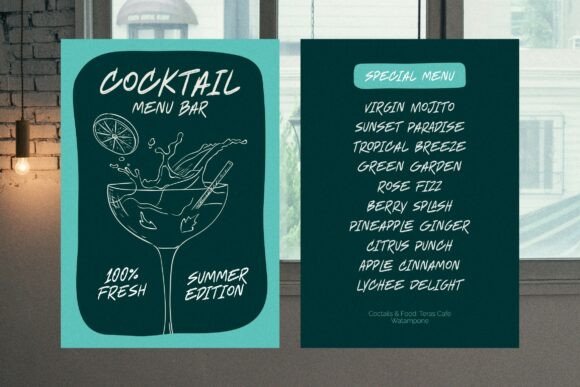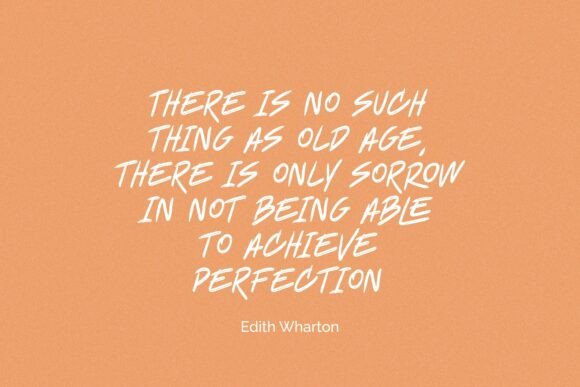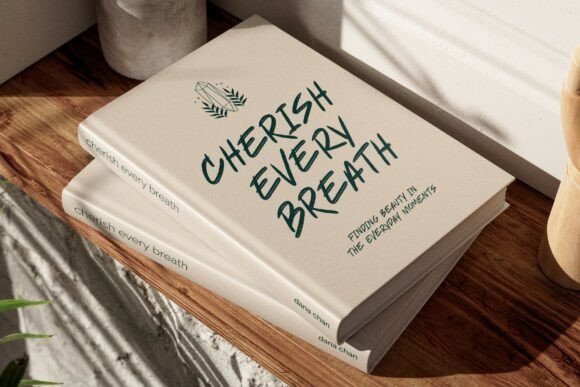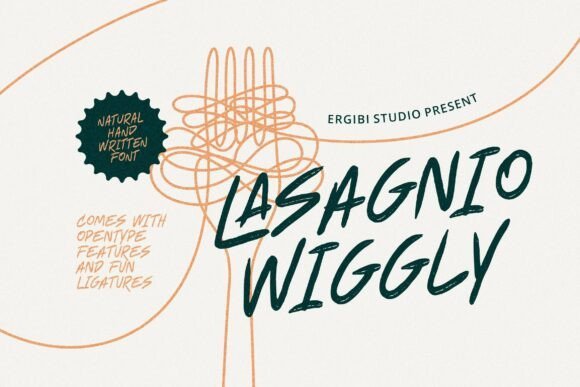
Introduction to Lasagnio Wiggly Font
Lasagnio Wiggly is a natural handwritten all-caps font with a playful twist.
Its wiggly, imperfect strokes capture the charm of casual handwriting, giving every word a funny and lighthearted feel Perfect for posters, quotes, packaging, or any design that needs a touch of humor and personality, Lasagnio Wiggly brings a warm, human touch to your creative projects.